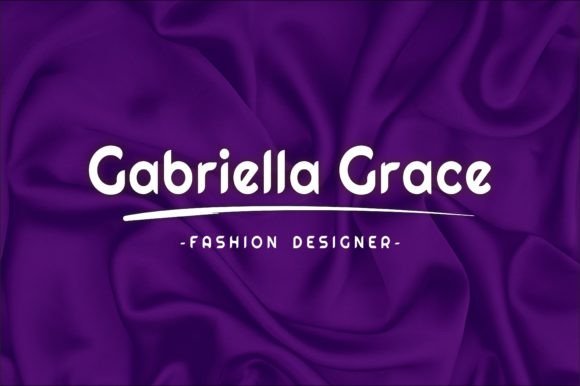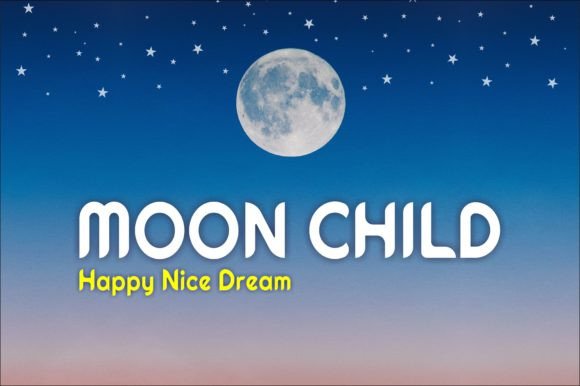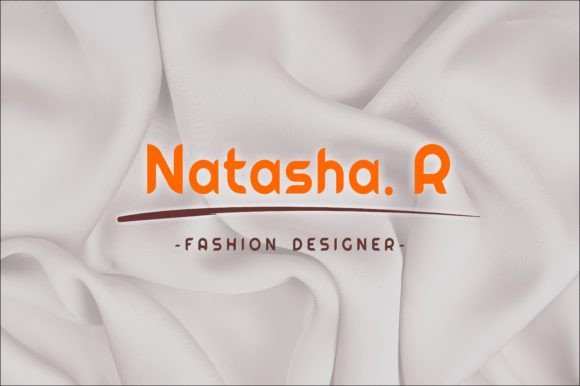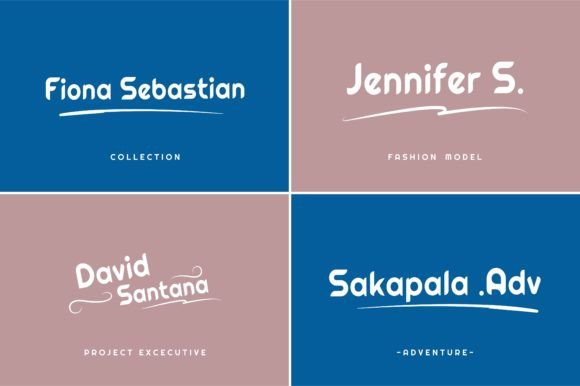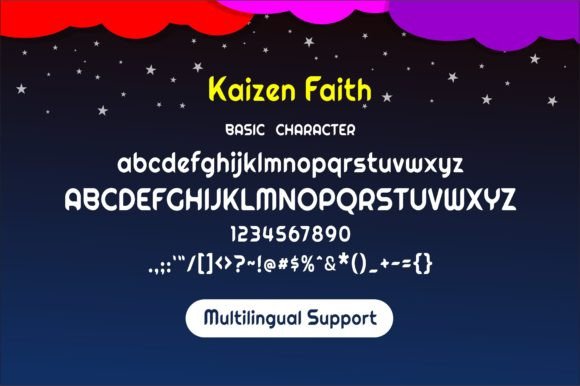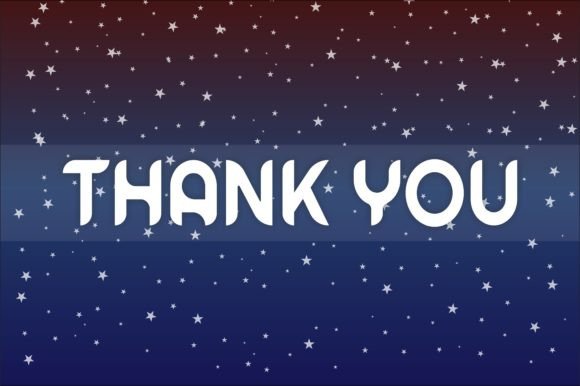
Introduction to Kaizen Faith Font
Kaizen Faith is cool, retro, and fun display font.
It will look great on headlines, magazines, logos, branding materials and so much more .
Key Features of Kaizen Faith Font
Why Choose Kaizen Faith Font?